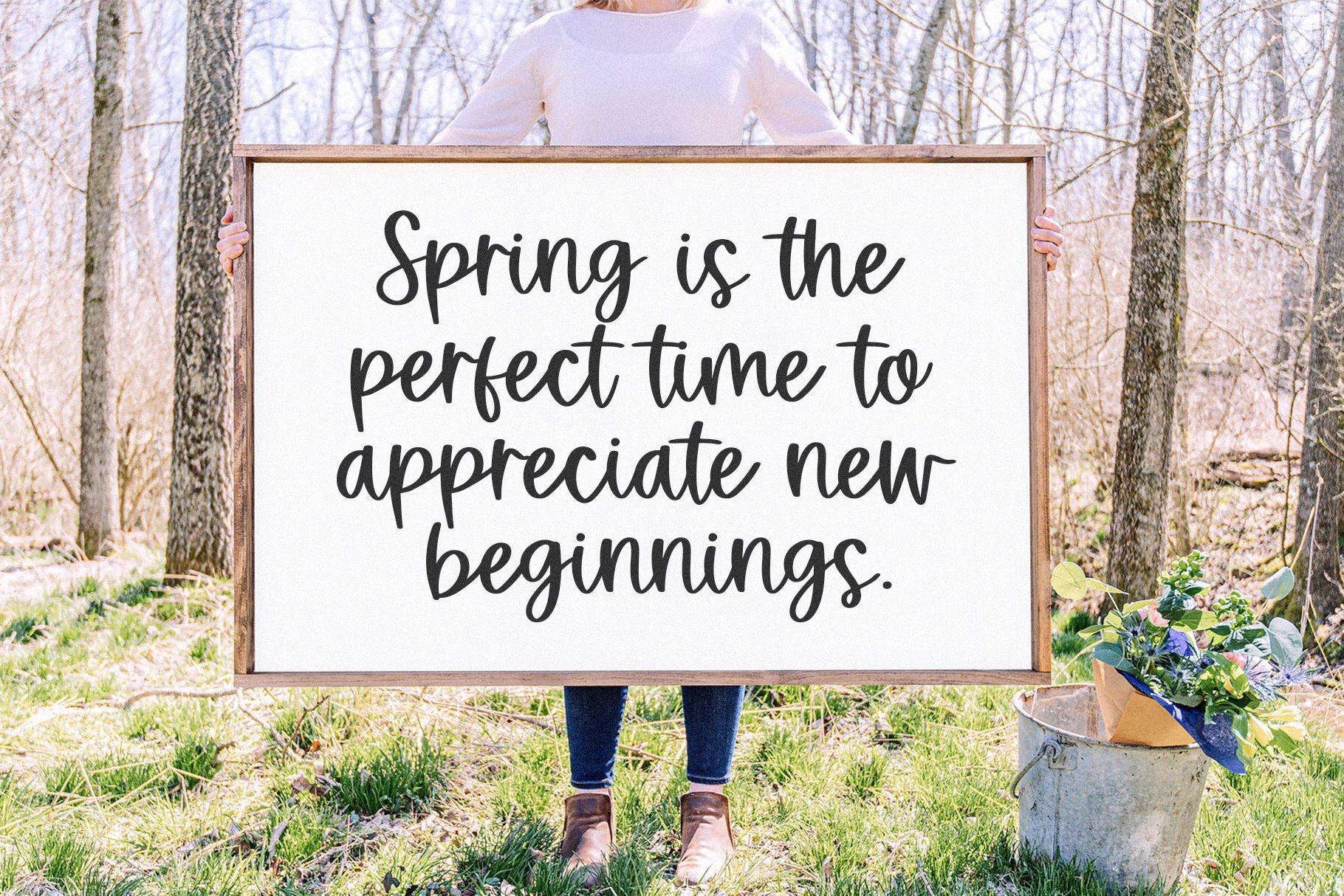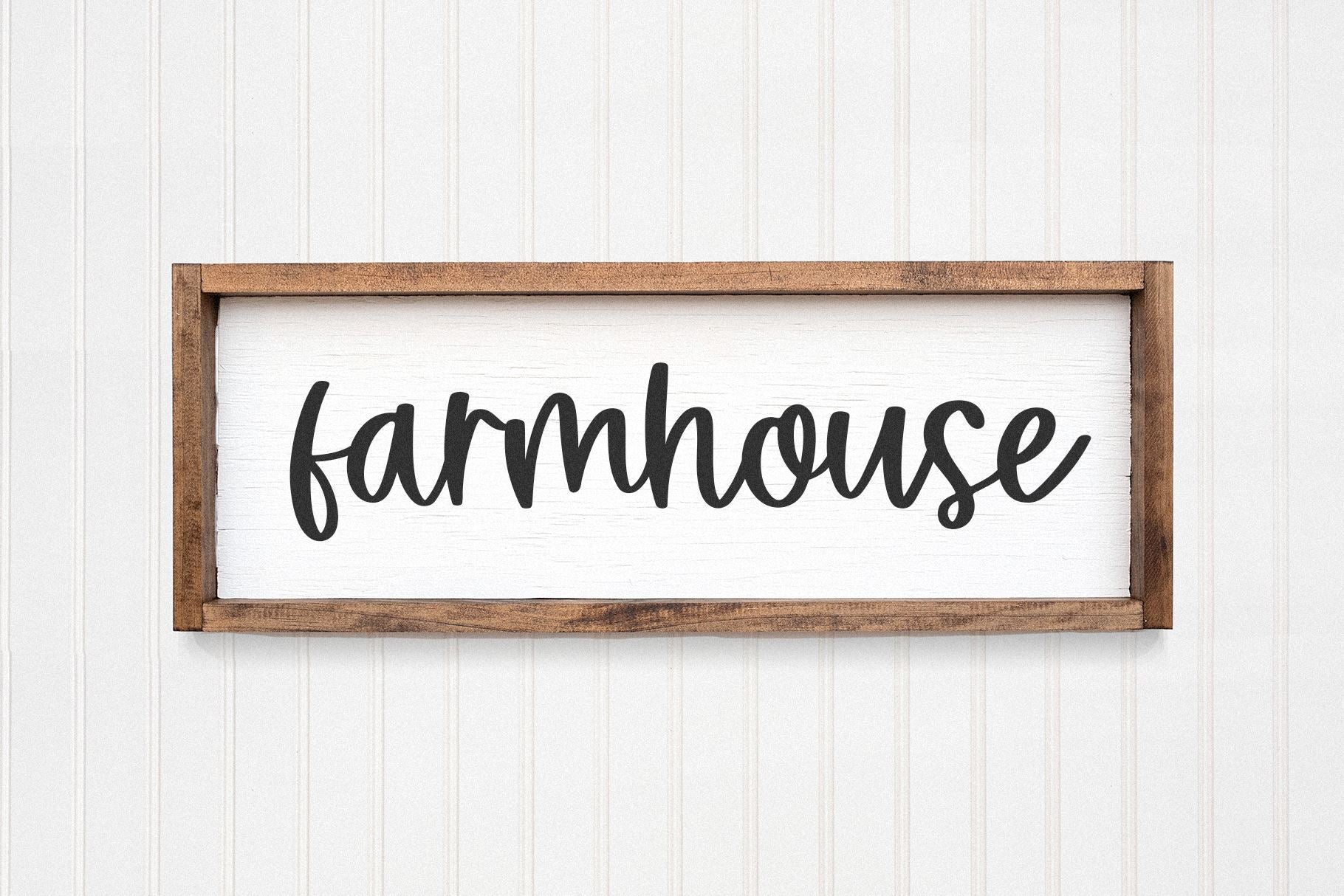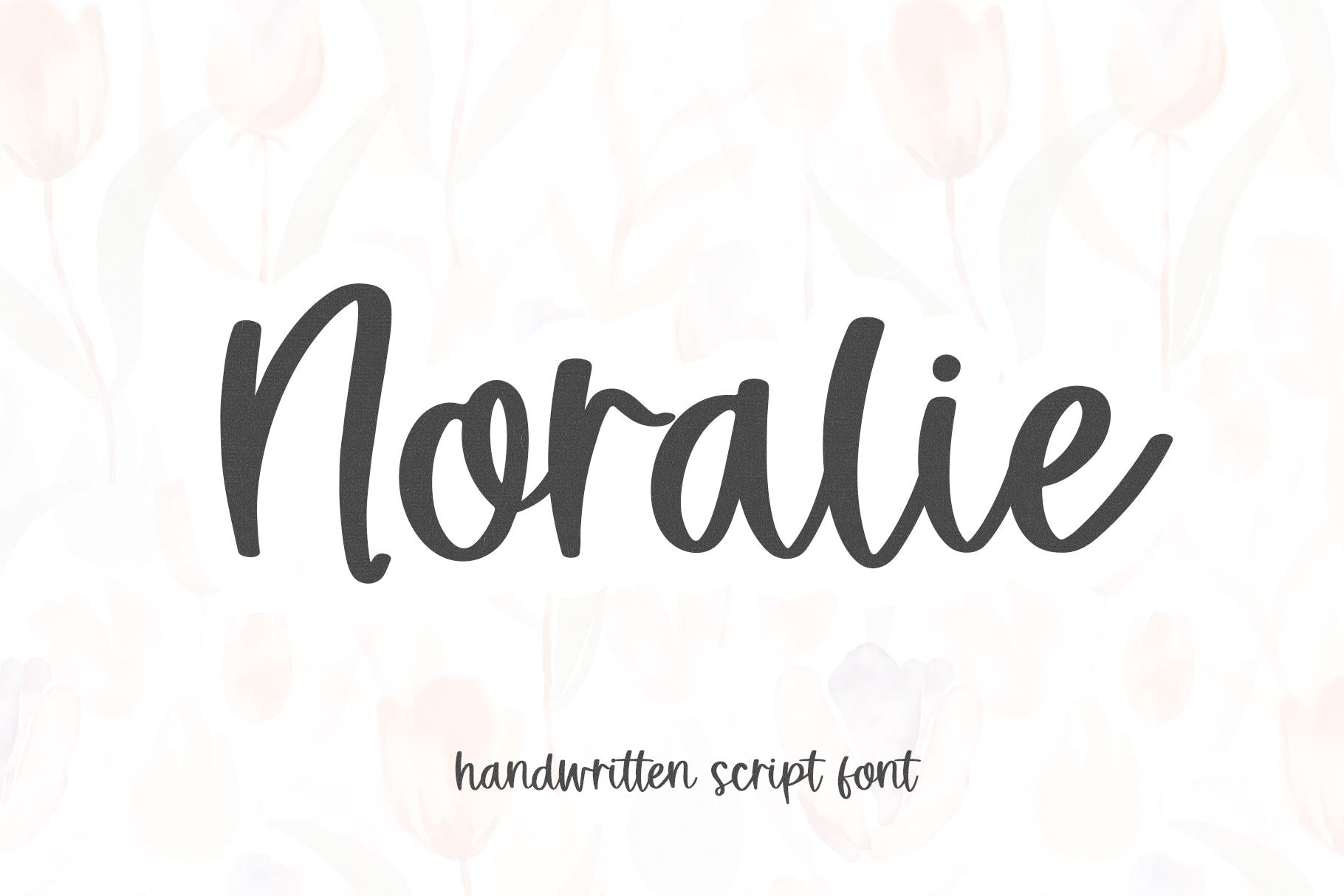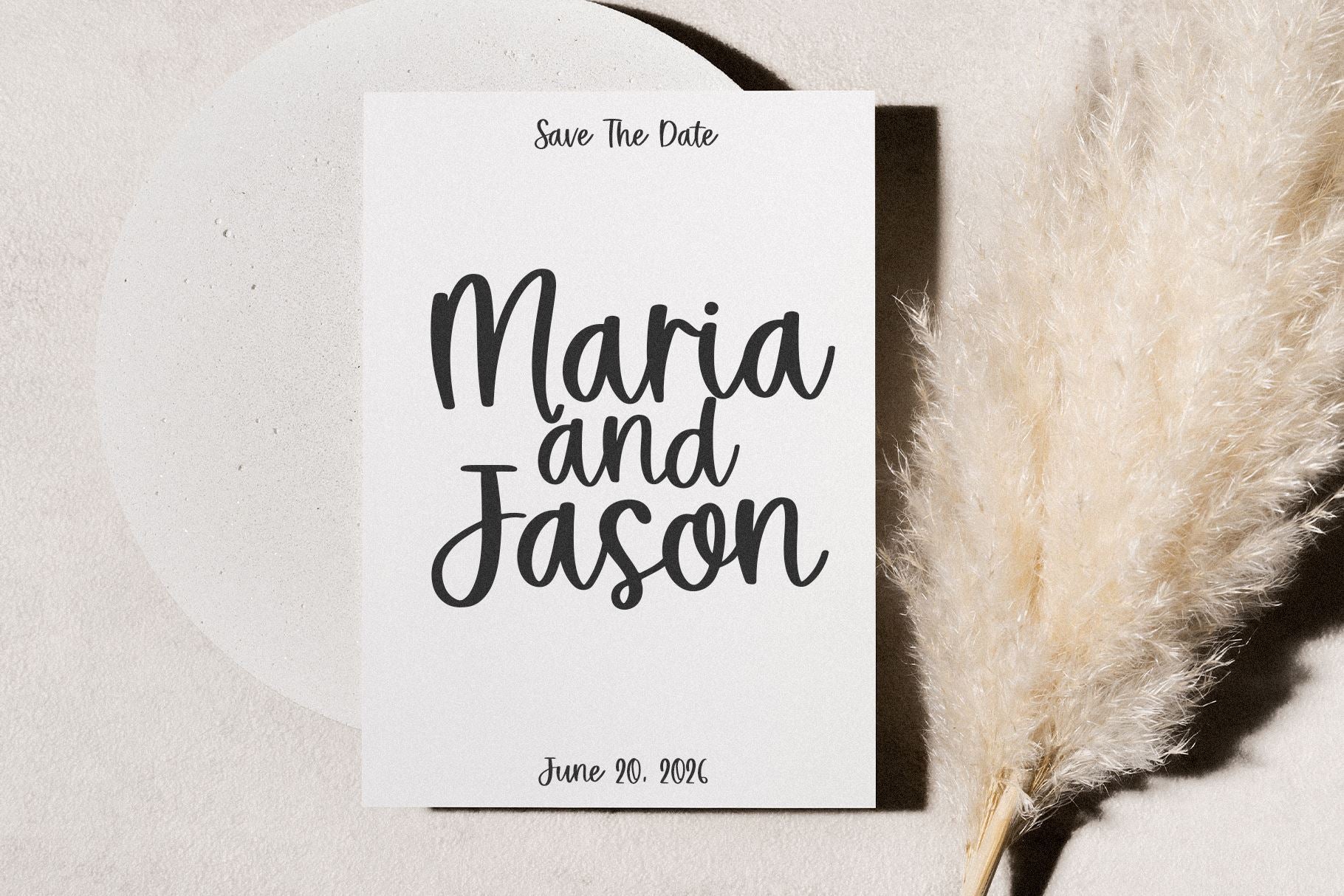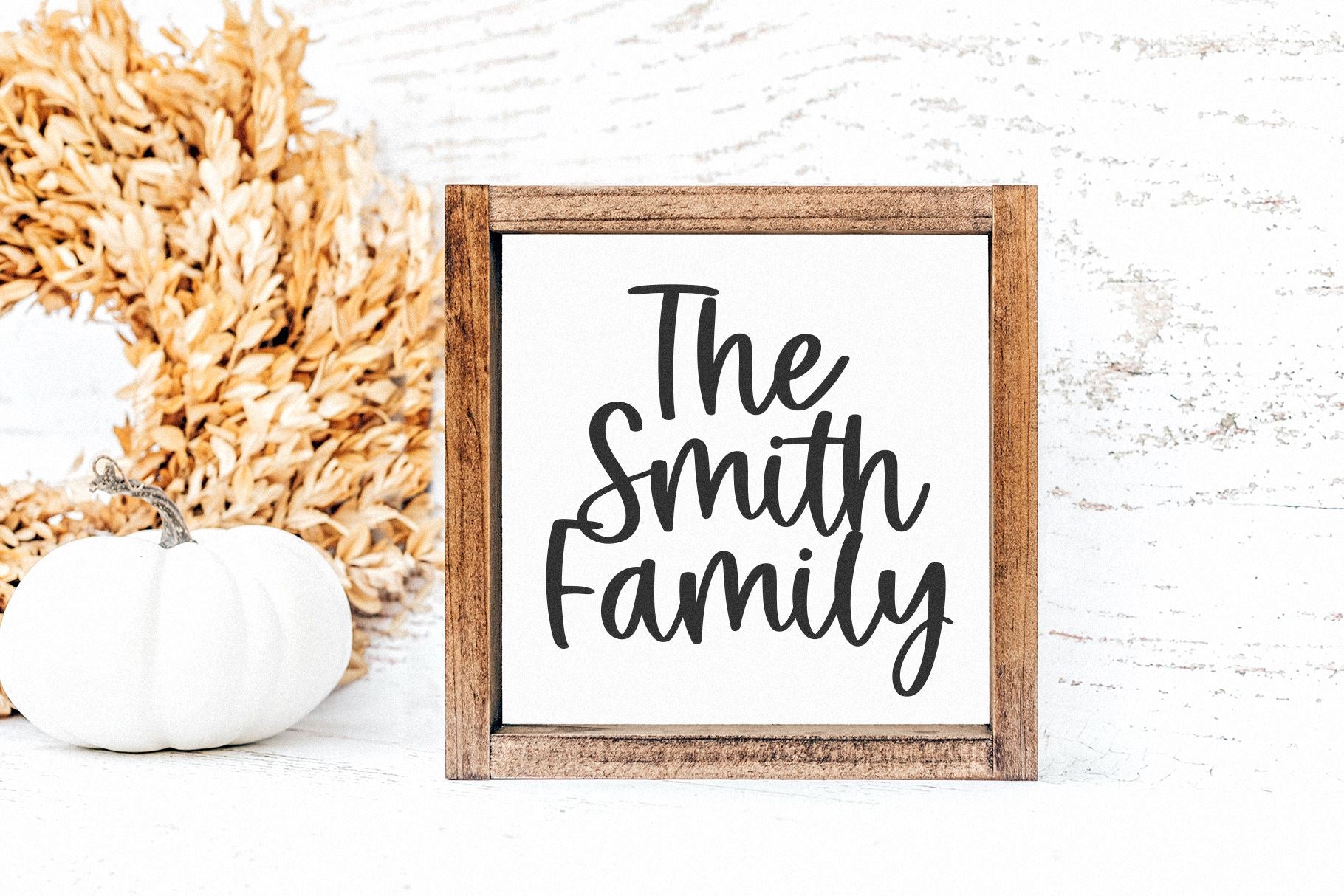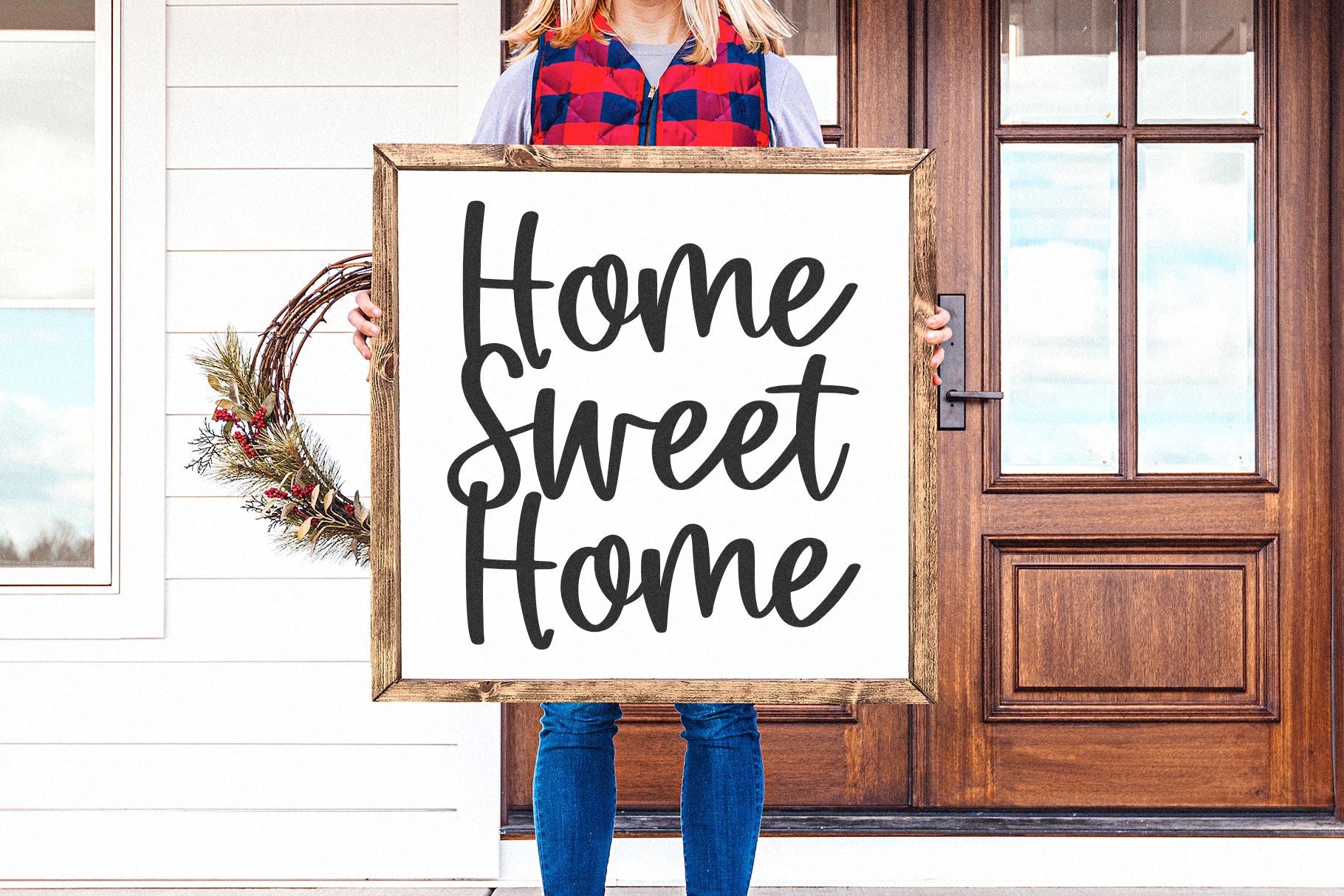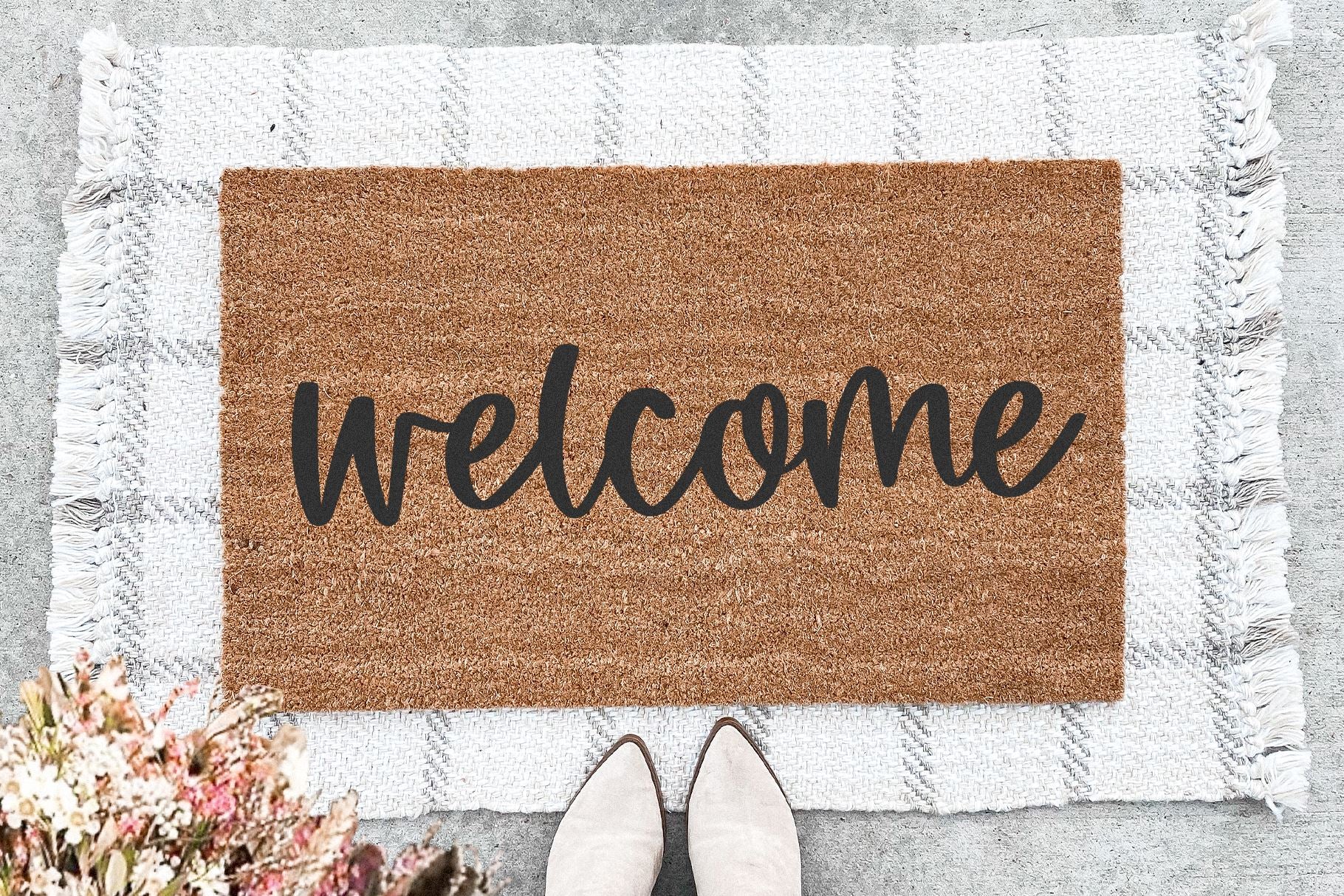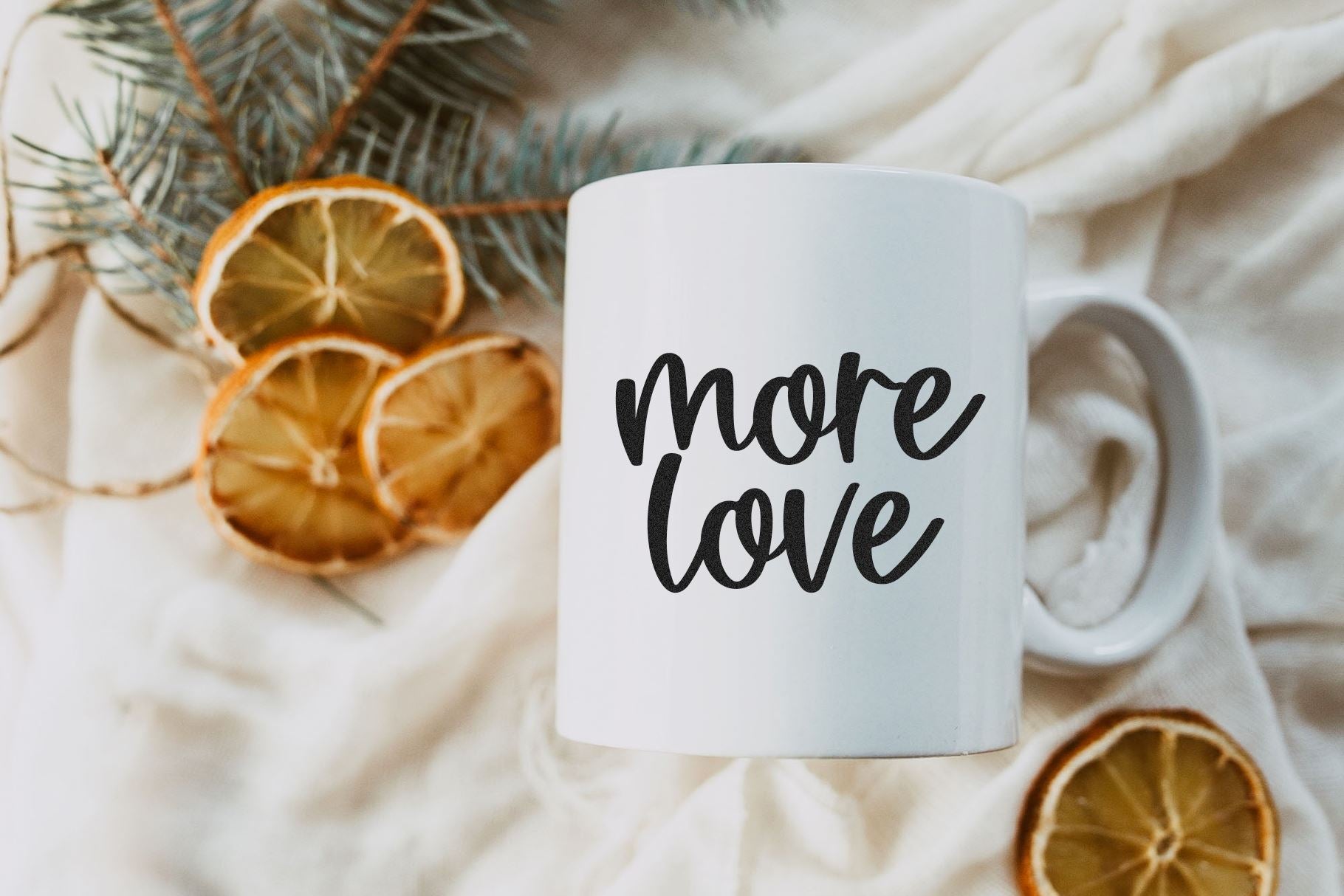
Noralie is a modern handwritten script font. This font is perfect for your craft projects, wedding decor, invitations, logos, quotes, shirts, mugs, doormats and more! Includes OTF/TTF Thank you!